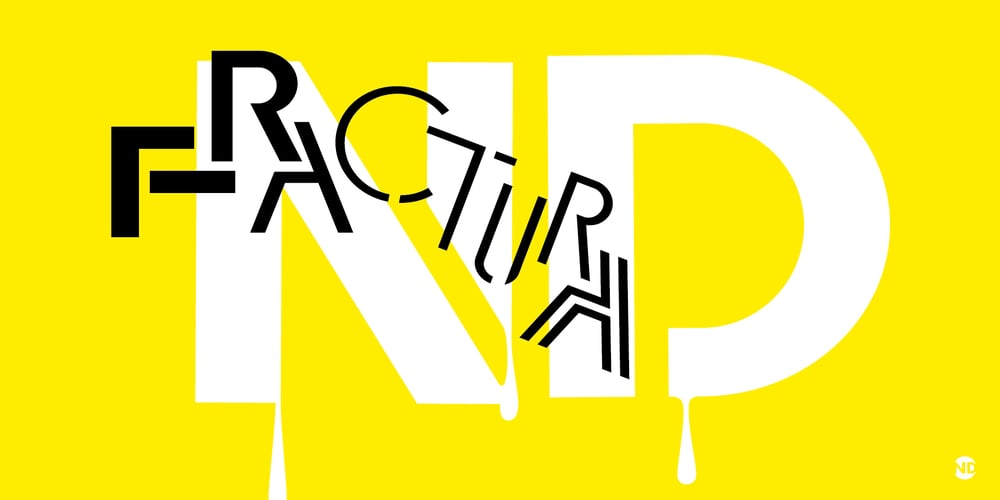
Fractura ND Font Family was designed by José María Cerezo and published by Neufville Digital. Fractura ND contains 8 styles and family package options. Fractura ND is a stencil typeface designed by José María Cerezo. It includes, in addition to four fonts of different weights, an outline font, a pair of fonts to make bicolor sets and a dripped font. A geometric sans serif that, with the particularity of being a stencil, provides personality and wide compositional possibilities. Fractura is a Trademark of BauerTypes SL